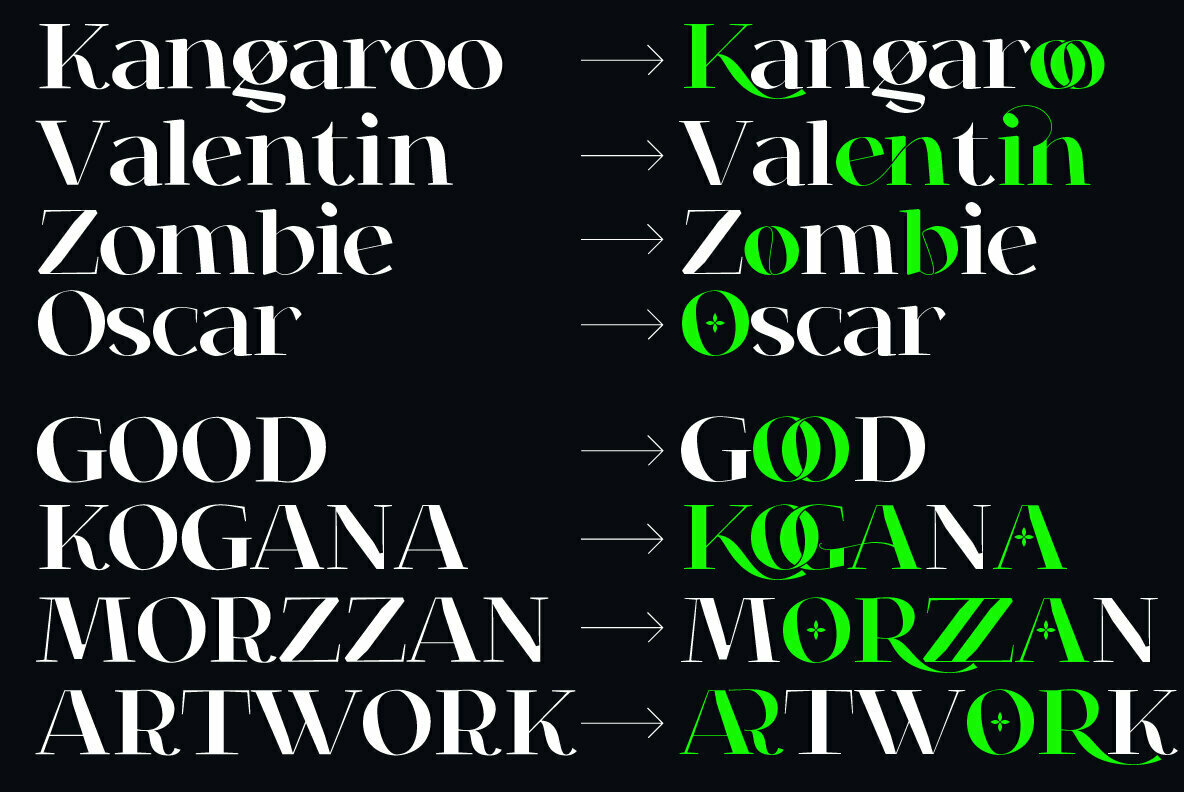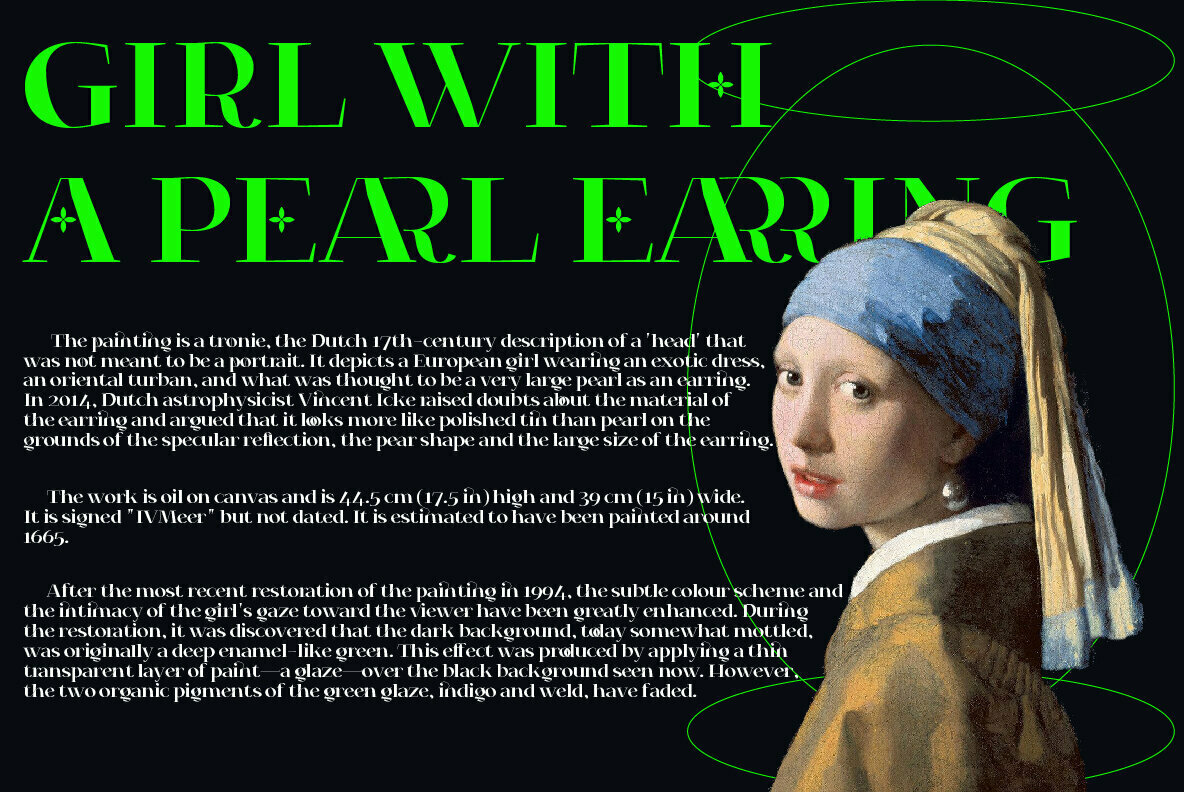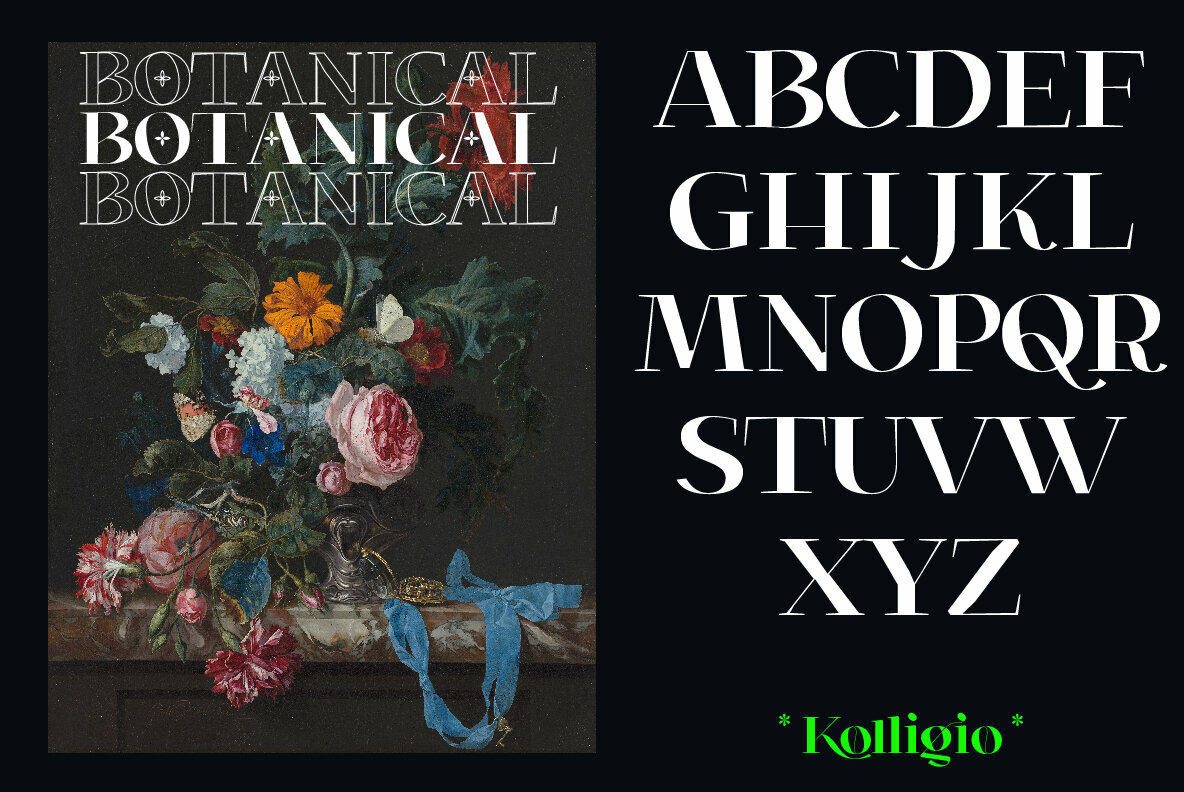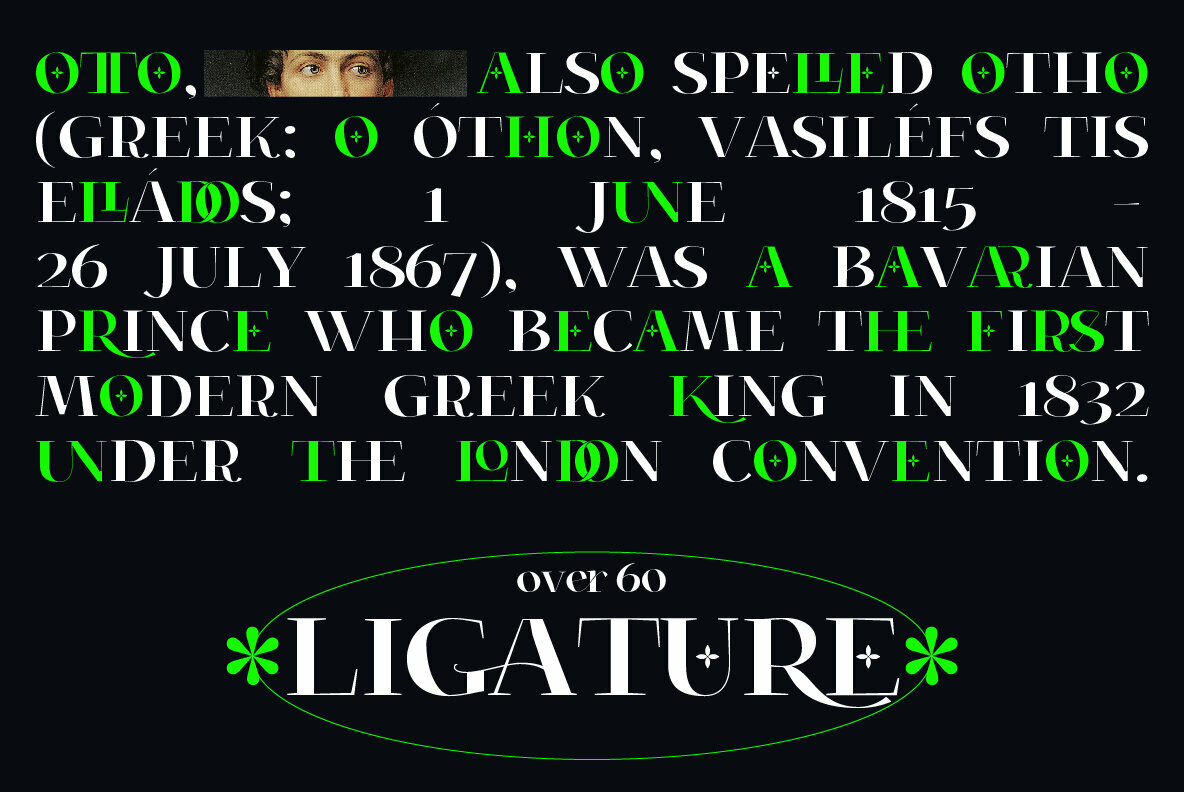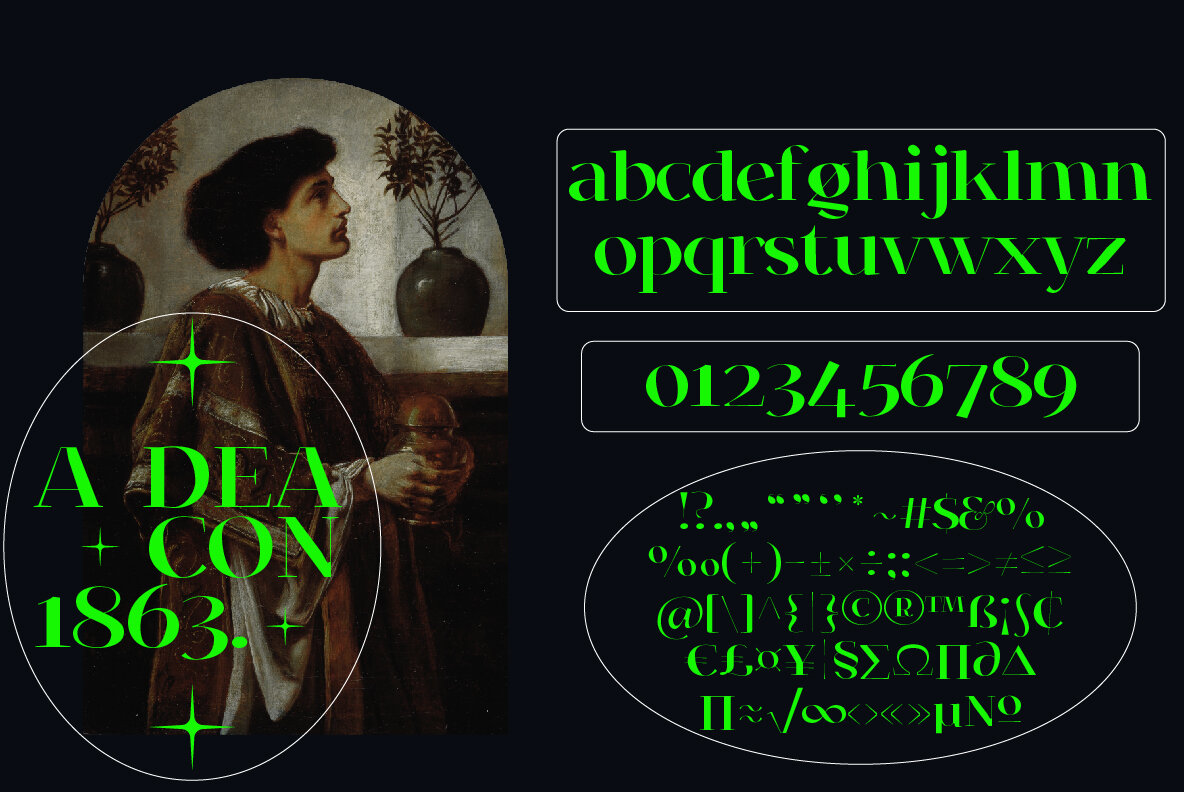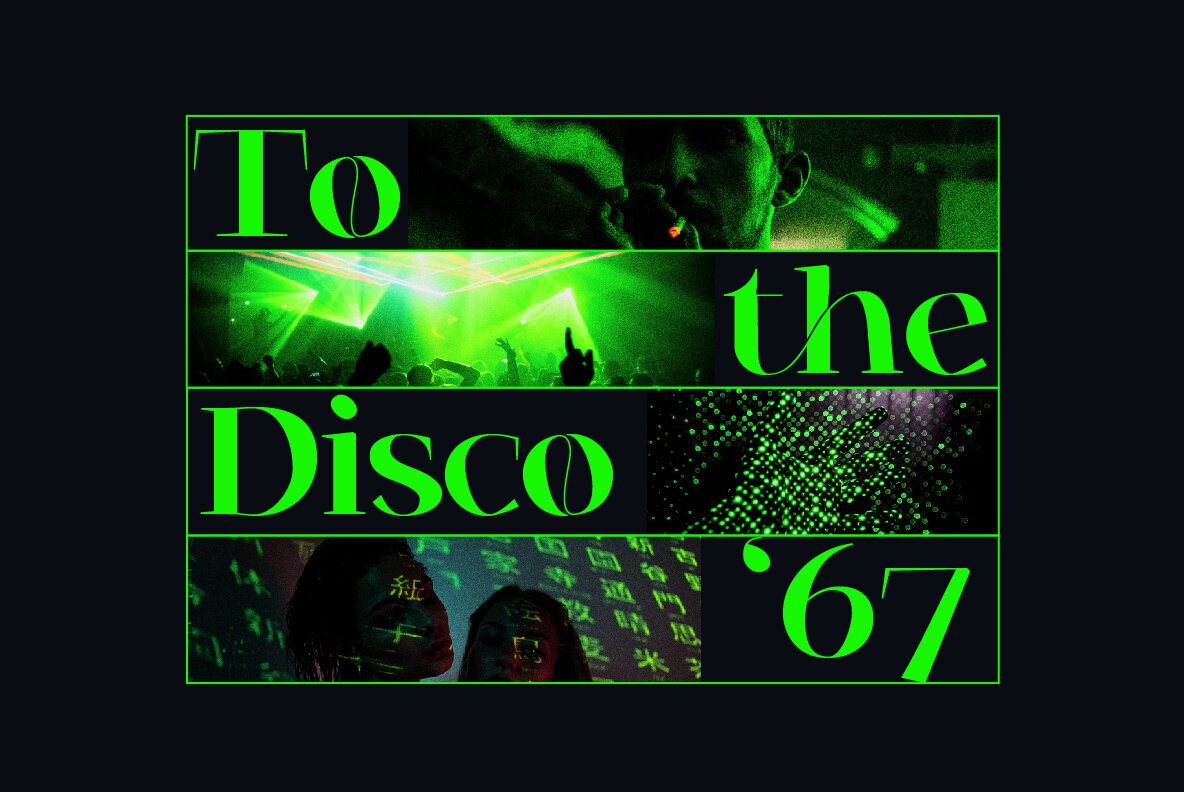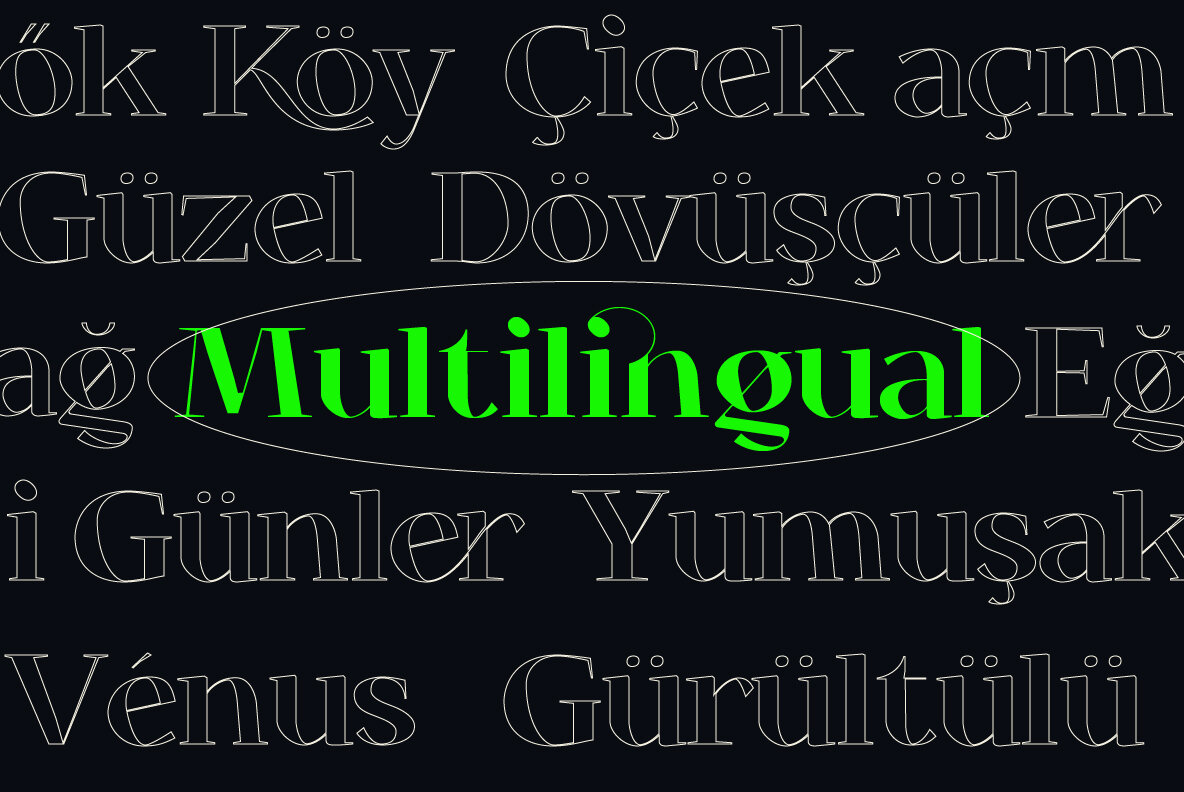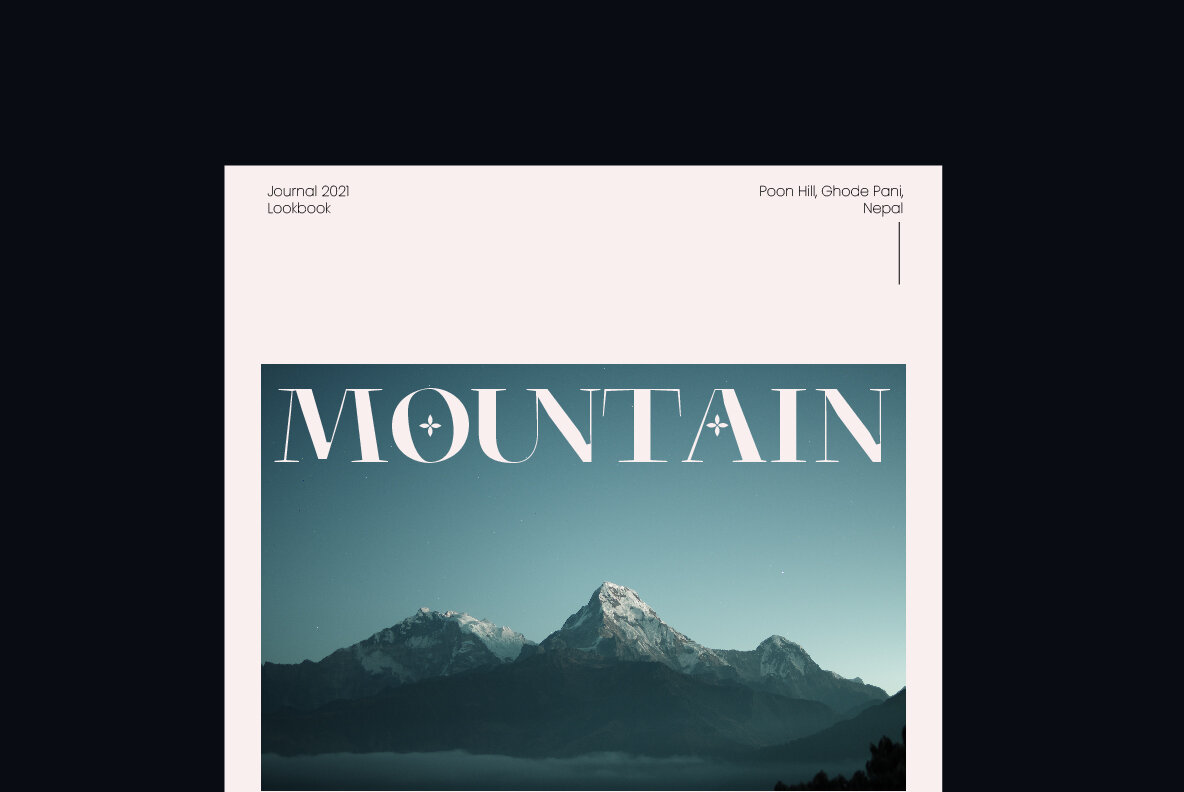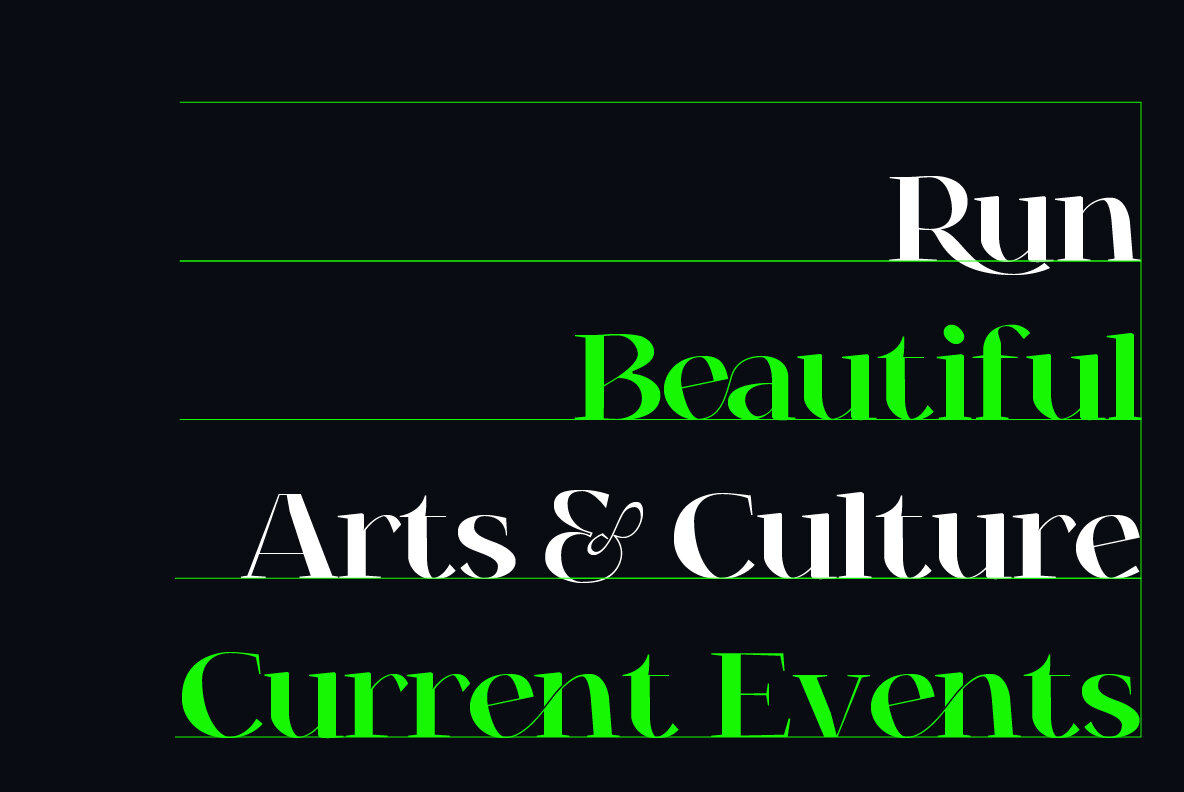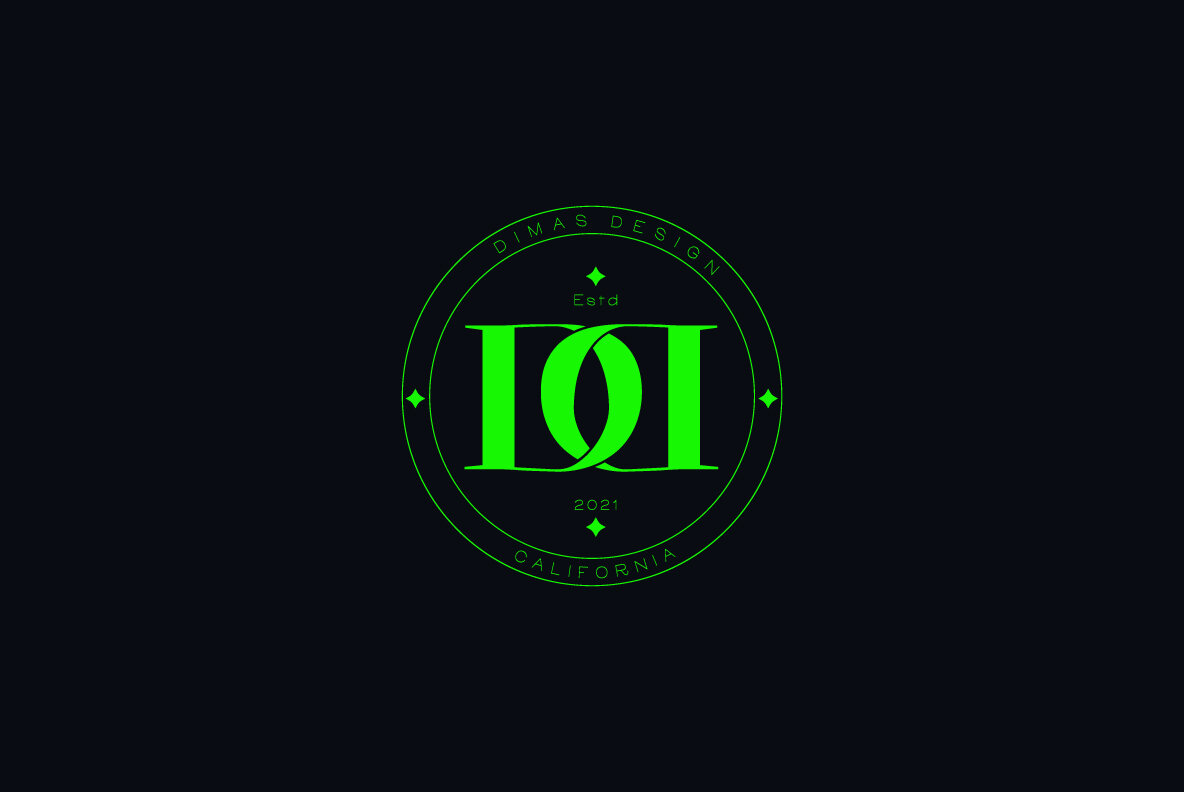
Kolligio Font
Kolligio Regular
Proud to introduce you the classic Kolligio serif filled with modern moods, with ligatures, custom alternative glyphs, and old style. The high contrast between thick and thin strokes gives Kolligio a stylish look and is ideal for headlines, headers, logos, labels, packaging, postcards, presentations, magazines, invitations, etc.
Kolligio has more than 60 upper and lower case ligatures, and for alternative letters (K, L, b, d, o, p, q, etc.) simply add a plus after the letter.